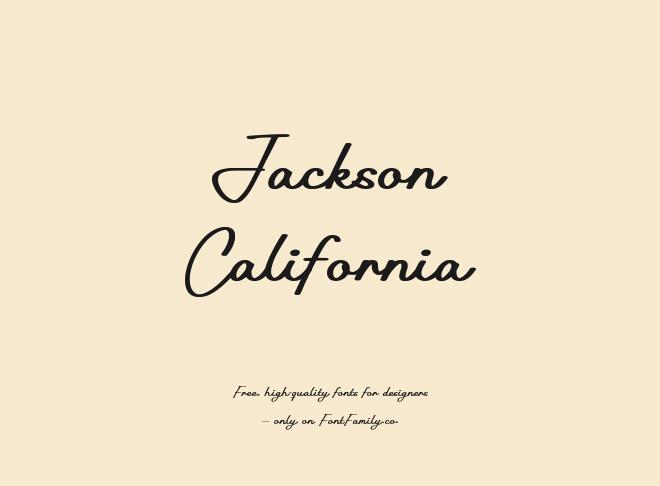
Jackson California Font
Jackson California Font is a beautiful script typeface, inspired by the vintage and retro culture of California. It combines the fluidity of handwritten scripts with a modern twist, making it an ideal choice for branding, logo design, and creative headings. With its unique character style and well-balanced kerning, it stands out in the crowd, offering a distinctive look that is both retro and contemporary. The font is reminiscent of classic script fonts but with a more modern, streamlined feel, making it a versatile choice for a wide range of design projects. Jackson California Font breathes life into every design with its dynamic letterforms and unique style, making it a must-have for any designer's toolkit.